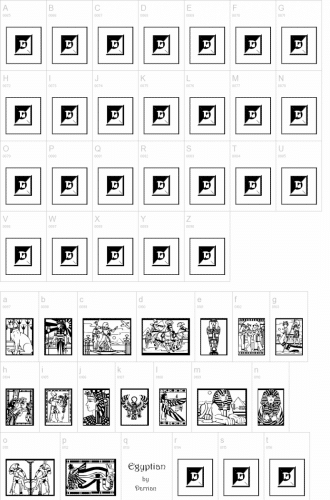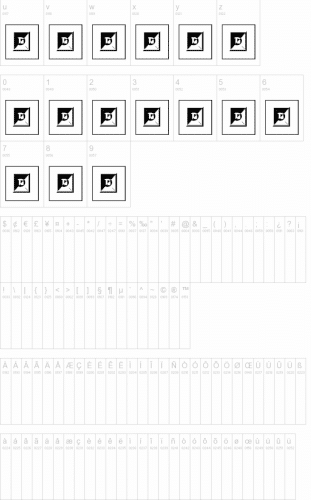
Egyptian Outline is a decorative font inspired by Ancient Egyptian hieroglyphics. Use it for any projects that requires an original look.
- Designer: Shelley